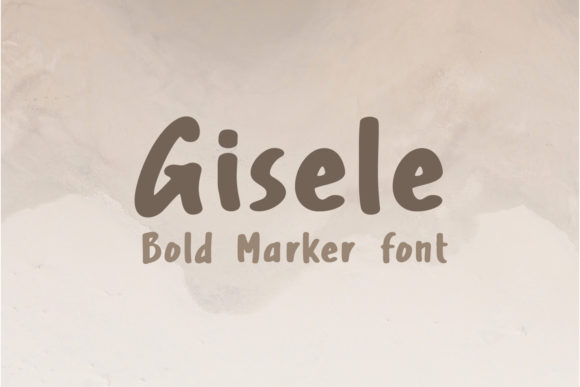
Introducing Gisele Font, the script font that oozes boldness, creativity, and uniqueness. Cititype, the mastermind behind this exceptional font, has poured their heart and soul into crafting a font that's not just visually stunning, but also versatile enough to elevate your designs to unprecedented heights.
Gisele Font is the epitome of elegance and sophistication, with its graceful curves and sweeping lines that dance across the page, captivating the eyes of the beholder. Each letter is a work of art, meticulously designed to exude a sense of luxury and refinement. Whether you're creating wedding invitations, branding materials, or social media posts, Gisele Font adds an air of sophistication that leaves a lasting impression.
But beyond its beauty, Gisele Font is also incredibly versatile, adapting effortlessly to a wide range of design styles and projects. From whimsical and playful designs to serious and professional ones, Gisele Font seamlessly blends in, enhancing the overall impact of your work. It's the perfect font for designers who want to make a statement and leave their mark on the world.
More than just a font, Gisele Font is an experience that sparks creativity and ignites imagination. It's the perfect companion for designers who crave originality and seek to create designs that stand out from the crowd. Whether you're a seasoned professional or just starting out, Gisele Font is the key to unlocking your creative potential and turning your design dreams into a reality.
So why settle for ordinary when you can have extraordinary? Embrace the power of Gisele Font today and embark on a design journey like never before. Let your creativity soar and watch as your designs transform into masterpieces that captivate and inspire. Experience the magic of Gisele Font and see the difference it makes.